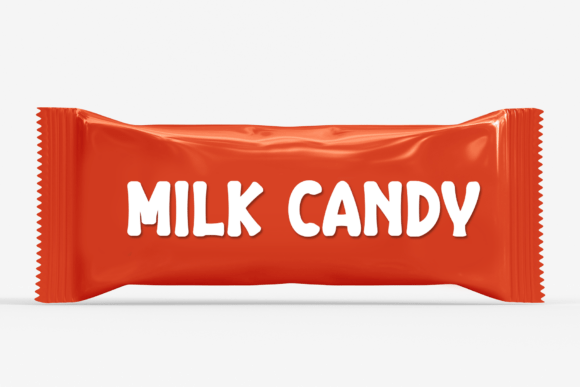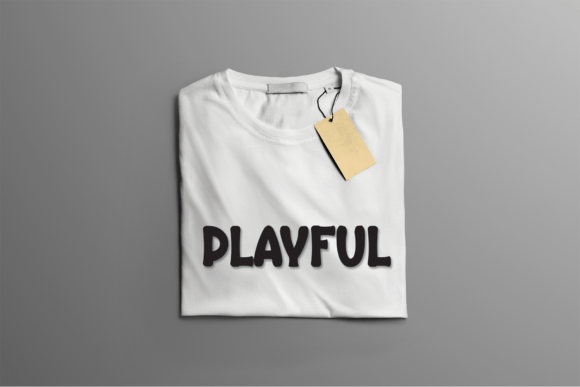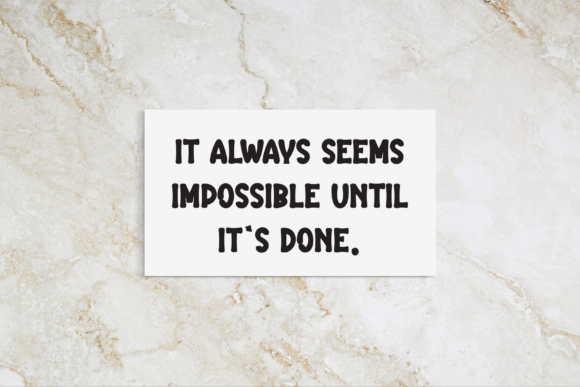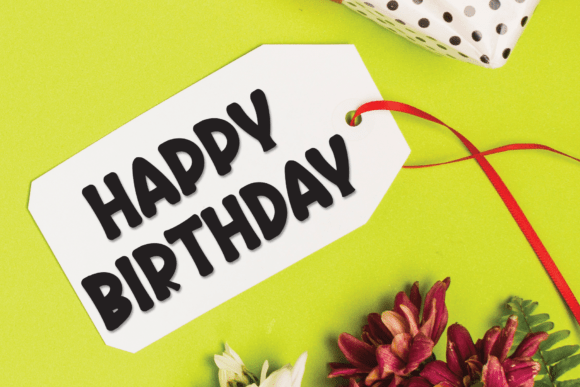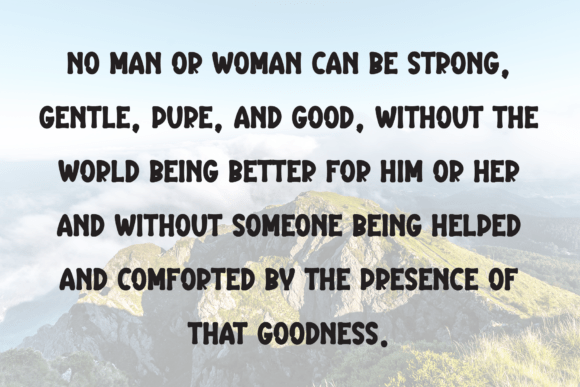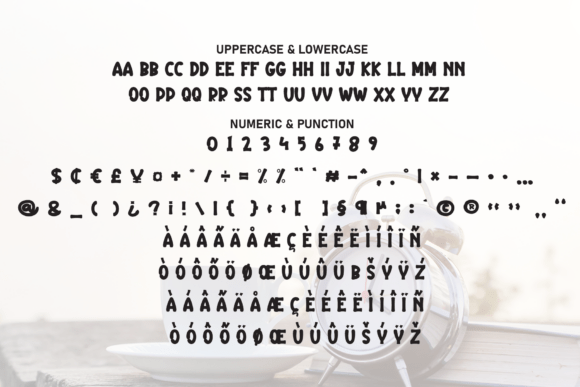
Introduction to Mondaylight Font
As a designer, you know the rush of finding that perfect font to elevate your creative project. It’s like stumbling upon a hidden gem in a crowded market – a feeling that’s hard to replicate, but always leaves you feeling inspired. For me, that moment came when I discovered the Mondaylight Font, a game-changing display font that’s been turning heads in the design community.
With its bold, high-impact design, the Mondaylight Font introduces a “new style” of handmade typography that’s both eye-catching and approachable. Whether you’re working on a modern editorial header, lifestyle branding, or urban-themed merchandise, this font is an excellent choice for designers who want to add a touch of high-quality, handcrafted personality to their projects.
Key Features of Mondaylight Font
- Unique, modern font with a transparent background, ideal for graphic designers and artists.
- Features a clean and minimalist aesthetic, making it perfect for logos, branding, and typography-based designs.
Honest Review: Mondaylight Font
I recently stumbled upon the Mondaylight Font and I’m excited to share my thoughts with you. As a designer, I’m always on the lookout for high-quality design resources that can elevate my creative projects. This font definitely delivers.
What works well: ✨ The Mondaylight Font has a clean and modern aesthetic that’s perfect for a wide range of design applications. The font is highly legible, making it ideal for body text and headings. I also appreciate the transparent background, which gives me the flexibility to use it on any design surface.
- Clean and modern aesthetic
- Legible font for body text and headings
- Transparent background for flexibility
Limitations: ⚠️ While the Mondaylight Font is a great addition to my design arsenal, I do wish it had a more comprehensive character set. Additionally, the font could benefit from more font weights and styles to increase its versatility.
Designing with Mondaylight Font
To get the most out of the Mondaylight Font, experiment with different font sizes, colors, and combinations. Use it to create eye-catching headings, titles, or even entire text-based designs. The font’s versatility makes it suitable for various design projects, from brochures to social media graphics.
Mondaylight Font is commonly used in:
– Blog posts and articles
– Social media graphics and posts
– Brochures and flyers
– Business cards and letterheads
– Website headers and footers
Alternatives to Mondaylight Font
Lato is a popular sans-serif font suitable for various creative projects, such as branding and web design. It features a clean, high-quality design with a transparent background, making it ideal for use on any background.
Compared to Mondaylight Font, Lato has a more modern and sleek appearance, while Mondaylight Font has a more minimalist and subtle feel. Lato is a great choice for designers looking for a versatile and modern font.